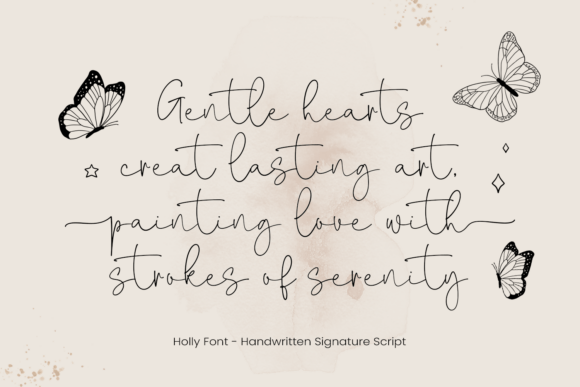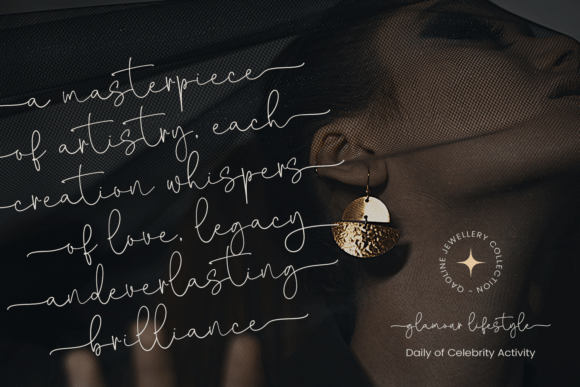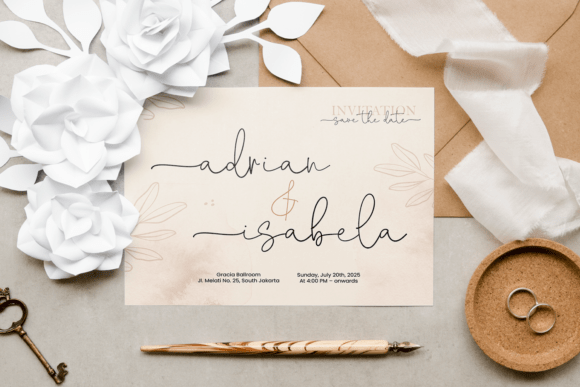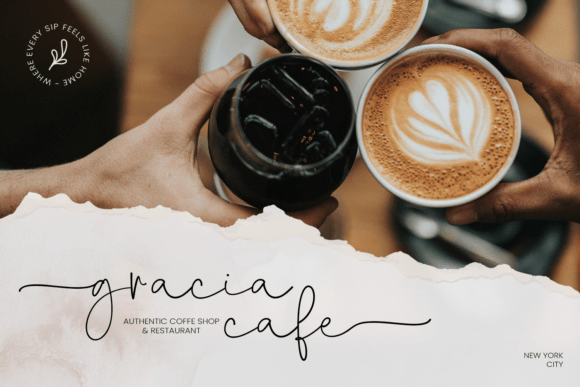
Holly Font
Introducing Holly, a stunning script handwritten font that brings the warmth and sparkle of the festive season to your designs. With its elegant signature style and flowing curves, Holly is perfect for Christmas projects, Thanksgiving themes, wedding invitations, birthday cards, and so much more. It adds a joyful and classy touch to every creative work, making it ideal for both digital and craft projects.